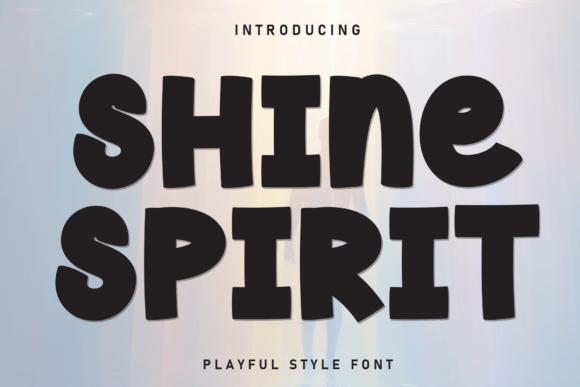
Shine Spirit: The Bold, Chunky Display Font That Brings Energy to Your Brand
In the crowded landscape of digital design and print media, standing out often comes down to a single decision: the choice of typeface. While many designers reach for safe, neutral sans-serifs to ensure readability, there are moments when a project demands something with more personality, more bounce, and significantly more attitude. This is where Shine Spirit enters the conversation. It is not just another font; it is a delightfully bold, chunky, and dynamic display typeface designed to command attention. With its exaggerated, rounded letterforms and a slight slant that suggests forward motion, Shine Spirit embodies an energetic, cartoonish, and fun aesthetic that resonates deeply with audiences looking for joy and approachability.
The Anatomy of a Playful Typeface
To truly appreciate how Shine Spirit functions in a design layout, one must first understand its structural DNA. Unlike rigid geometric fonts or traditional serif styles, this typeface leans heavily into organic shapes. The defining characteristic is its chunkiness. Every stroke feels substantial and weighty, yet the heavy weight is softened by generous curves. There are no sharp corners here; instead, the letters flow into one another with a fluidity that mimics hand-drawn illustration.
The slight slant, or italicization, adds a crucial layer of kinetic energy. It gives the impression that the text is leaning into the action, creating a sense of urgency and excitement without sacrificing legibility. This combination of mass and movement makes the font feel alive. When you see a headline set in Shine Spirit, it doesn't just sit on the page; it bounces off it. This specific interplay between rounded forms and dynamic angles is what allows the font to maintain a strong visual presence while remaining friendly and inviting.
Why Rounded Forms Matter in Modern Design
Psychologically, humans associate rounded shapes with safety, comfort, and playfulness. In contrast, sharp angles can sometimes signal danger or aggression. By utilizing exaggerated rounded letterforms, Shine Spirit taps into this innate psychological response. It signals to the viewer that the content is safe to engage with, fun to explore, and free from pretension. This makes it an incredibly powerful tool for brands that want to lower barriers to entry and create an immediate emotional connection with their audience.
- Approachability: The soft edges make complex messages feel easier to digest.
- Memorability: Unique shapes stick in the mind longer than standard block letters.
- Versatility: Despite its boldness, the open counters (the holes inside letters like 'o' and 'e') prevent the text from becoming a solid blob at smaller sizes.
Ideal Applications for Shine Spirit
While a font like Shine Spirit is undeniably striking, it is important to recognize that it is a display font. This means it is engineered for headlines, logos, and short bursts of text rather than long-form body copy. Its impact relies on scale and spacing. When deployed correctly, however, the possibilities are vast. Let's explore the industries and project types where this spirited typeface truly shines.
Children's Products and Educational Materials
The most natural home for Shine Spirit is undoubtedly the world of children. From book covers and educational posters to toy packaging and app interfaces, the font speaks the language of youth perfectly. Its cartoonish vibe aligns seamlessly with illustrations of animals, superheroes, and fantasy worlds. Imagine a reading program logo or a "Welcome" screen for a kids' learning game; using Shine Spirit immediately sets a tone of adventure and fun. It tells the child, "This is going to be enjoyable," which is half the battle in engaging young learners.
Casual Apparel and Streetwear
In the fashion industry, particularly within the streetwear and casual apparel sectors, typography is often the primary graphic element. T-shirts, hoodies, and tote bags frequently rely on bold statements to convey identity. Shine Spirit offers a perfect solution for brands that want to project a cool, laid-back, yet spirited image. The chunky nature of the font translates beautifully onto fabric, ensuring that the message remains readable even from a distance. Whether it's a slogan for a skateboarding brand or a playful phrase on a summer dress, the font adds a layer of character that generic script or gothic fonts simply cannot match.
Spirited Branding and Impactful Headlines
Beyond specific demographics, any brand aiming to break away from corporate sterility can benefit from this typeface. Consider a coffee shop that prides itself on being a community hub, a startup focused on creative innovation, or a festival promoting music and art. For these entities, a standard Helvetica header might feel too cold. A headline in Shine Spirit, perhaps announcing a "Summer Sale" or a "Grand Opening," injects immediate vitality into the marketing material. It transforms a simple announcement into an event worth attending.
Integrating Shine Spirit into Your Workflow
Adopting a bold display font requires a shift in how you approach layout and hierarchy. Because Shine Spirit is so dominant, it should generally be used as the anchor of your design. Here are practical considerations for integrating it into your modern design workflow effectively.
- Pairing with Neutral Fonts: To let Shine Spirit do its job without overwhelming the reader, pair it with a clean, simple sans-serif or a neutral slab serif for body text. The contrast between the wild personality of the headline and the calm stability of the paragraph creates a balanced visual rhythm.
Whether you are designing a logo for a new line of eco-friendly toys, creating a banner for a local charity run, or refreshing the look of a family-owned business, the right typeface can make all the difference. Shine Spirit offers a robust toolkit for designers who need to say "hello" with a smile and a wave. Its strong, friendly, and memorable visual presence ensures that your message isn't just seenβit's felt. By embracing the bold and the dynamic, you give your project the energy it deserves, turning passive observers into engaged participants.